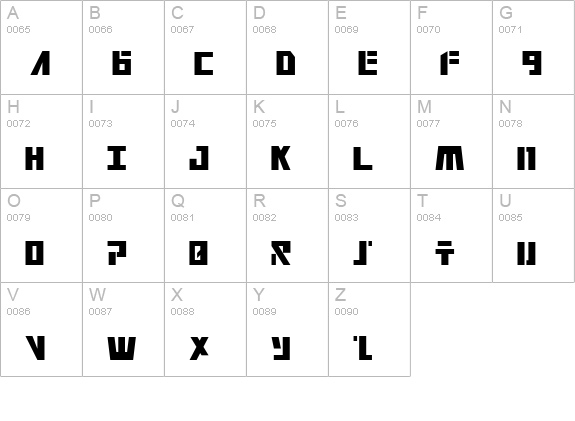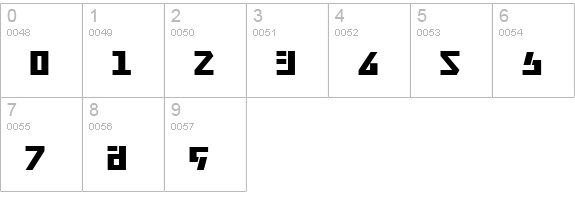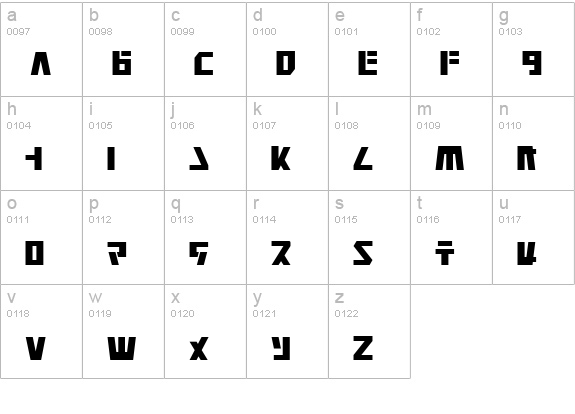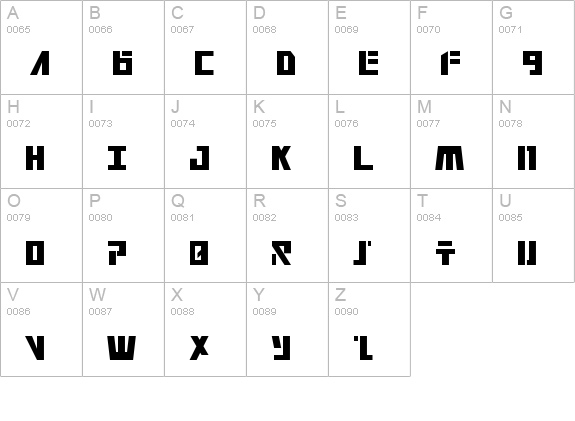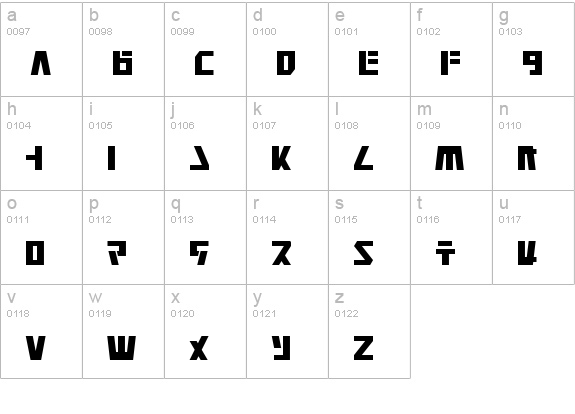
Falconhead Condensed Font Details
Falconhead Condensed is a distinctive, condensed-width variant in the Falconhead typeface family \xE2\x80\x94 well suited to design and typography projects.
Introducing Falconhead Condensed font, a sleek and modern typeface designed to make a bold statement in your projects. With its clean lines and sharp edges, Falconhead Condensed exudes a sense of sophistication and professionalism. This versatile font is perfect for a wide range of design applications, from branding and packaging to headlines and posters. What sets Falconhead Condensed apart is its unique blend of elegance and strength, making it ideal for projects that require a touch of sophistication with a bold edge. Whether you're creating a sleek logo, designing a striking poster, or crafting eye-catching headlines, Falconhead Condensed is sure to make a lasting impression. Best of all, Falconhead Condensed is free to download at FontsMarket.com, allowing you to elevate your designs without breaking the bank. So why wait? Download Falconhead Condensed today and take your projects to the next level with this stunning font.